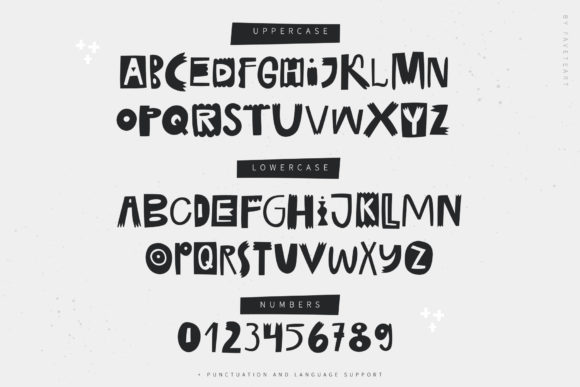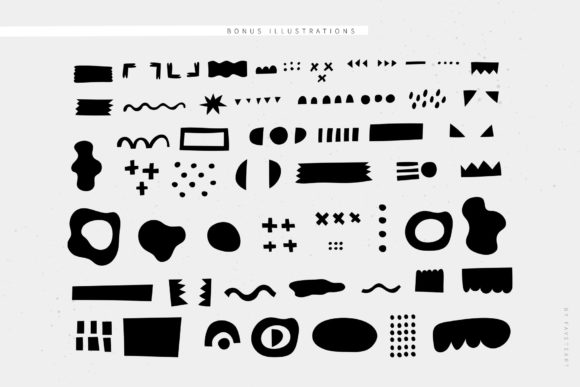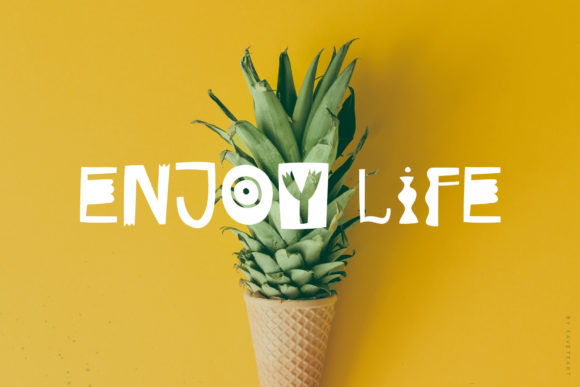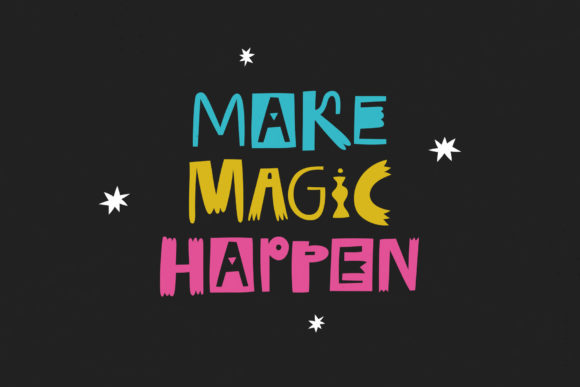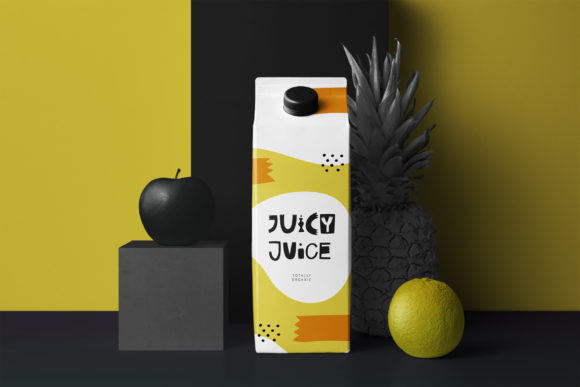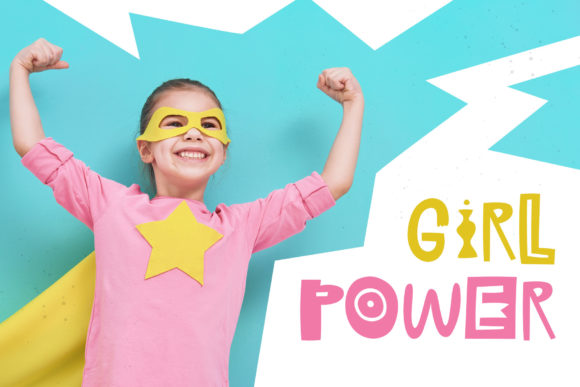
Introduction to Collagio Font
Collagio is a unique duo font (decorative and dingbats), with bold characters and a young feel to every letter and symbol.
It is perfect for kids’ designs, nursery prints and posters, branding, logos, packaging, and all kinds of fun designs .